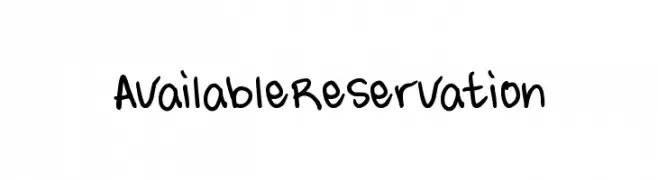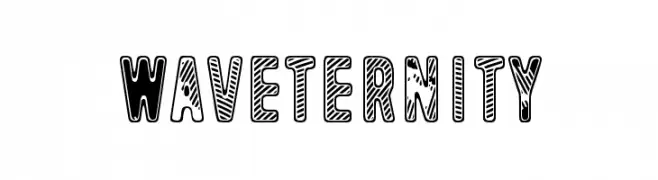
A playful, block-style font with characters enclosed in squares, ideal for fun and informal projects.
A bold, geometric font with a three-dimensional shadow effect.
A playful, handwritten font with bold, rounded letters and a casual, friendly style.
A bold, playful font with a unique striped pattern, ideal for eye-catching designs.
A bold serif font with a shadow effect, offering a vintage and elegant style.
A modern, tall, and narrow sans-serif font with clean lines and balanced spacing.
A modern, italic sans-serif font with medium weight and normal spacing.